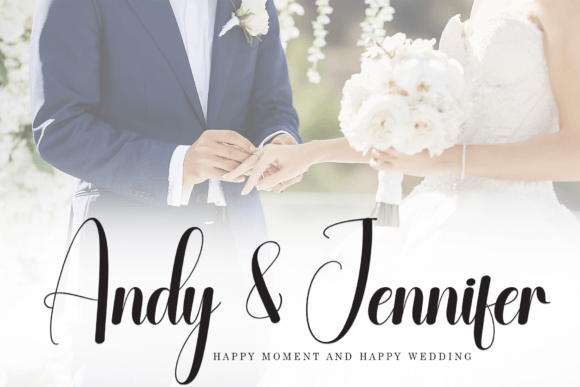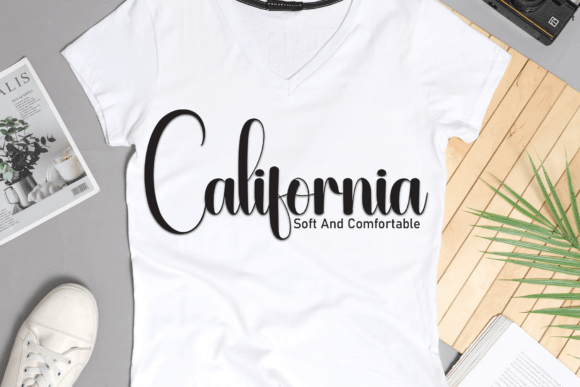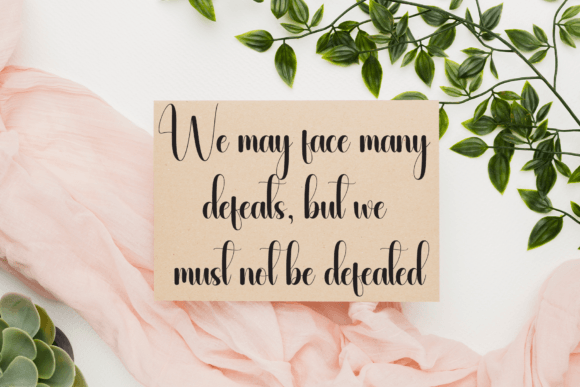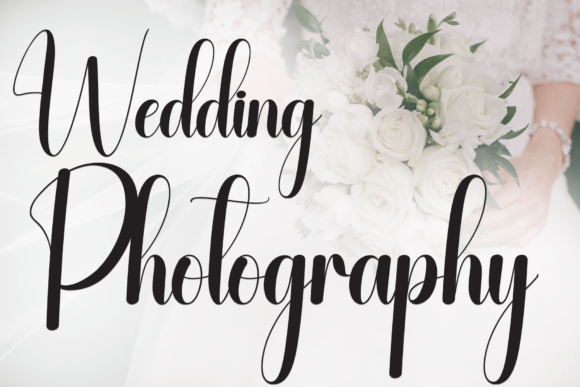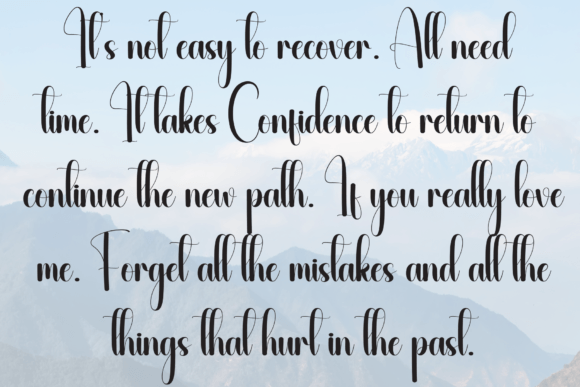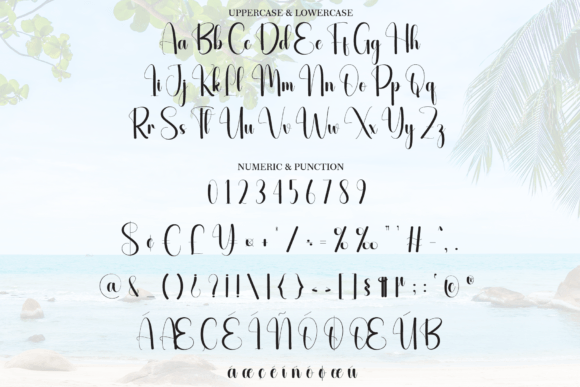
Introduction to Coastal Font
The Coastal Font is a delightful script and handwritten typeface that captures the essence of coastal living.
With its flowing lines and relaxed vibe, it evokes the beauty and serenity of the seaside Perfect for beach-themed designs, coastal-inspired branding, and projects that embody a laid-back and carefree coastal lifestyle.
Key Features of Coastal Font